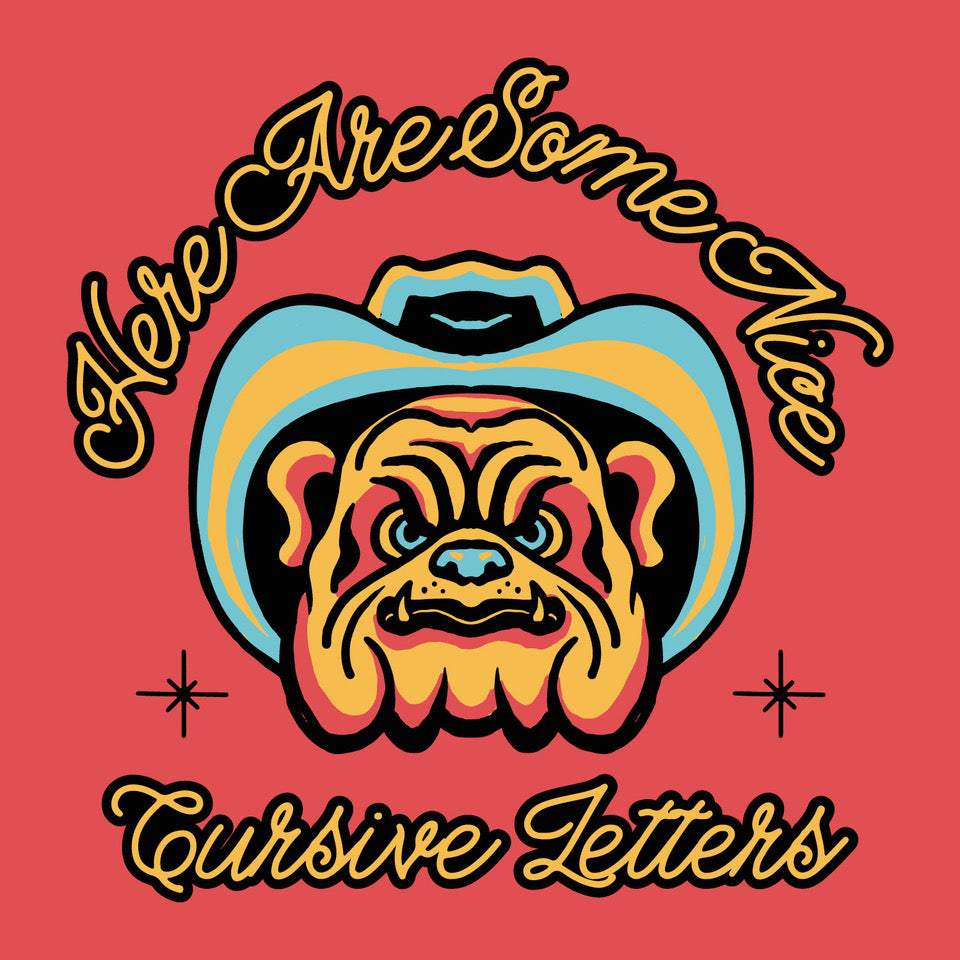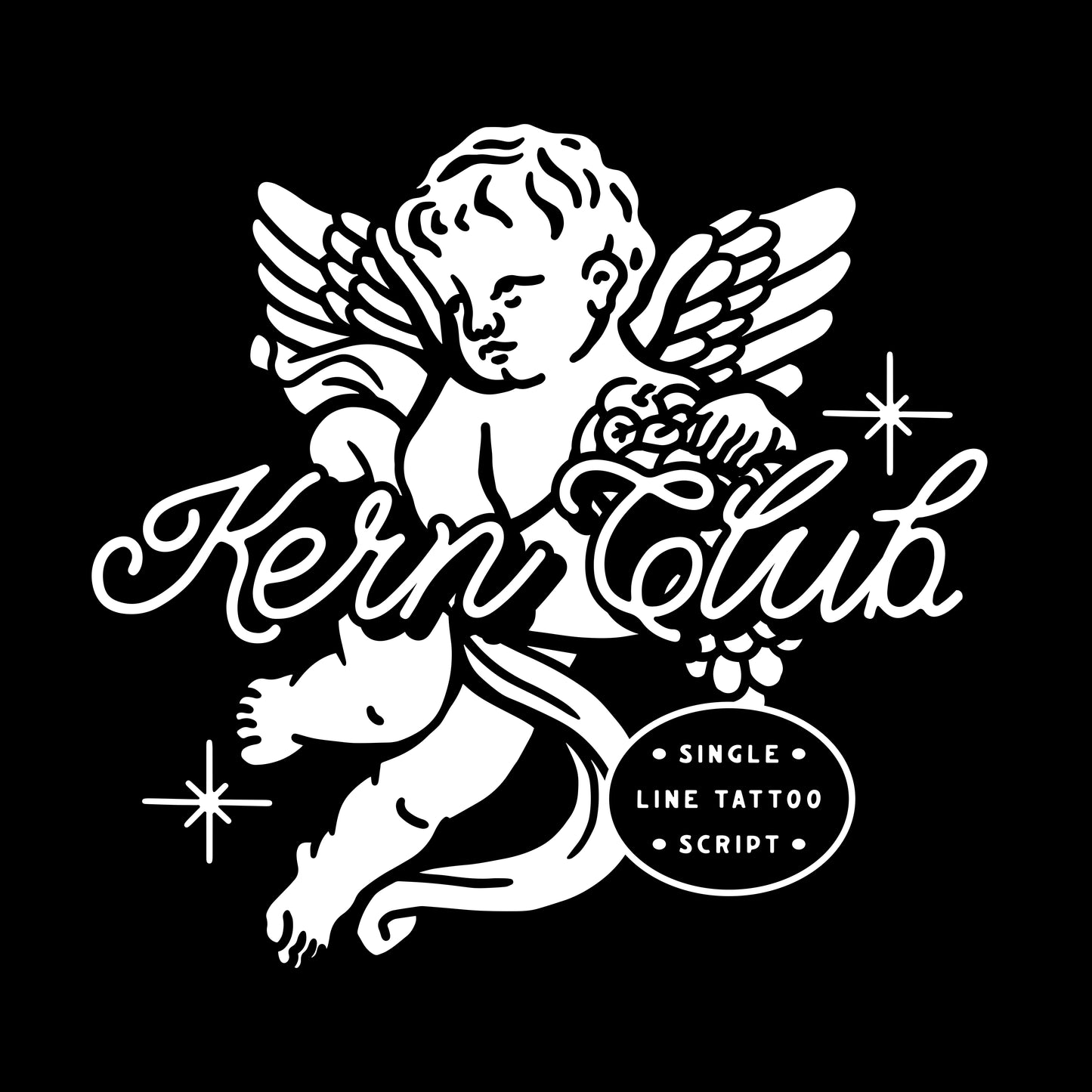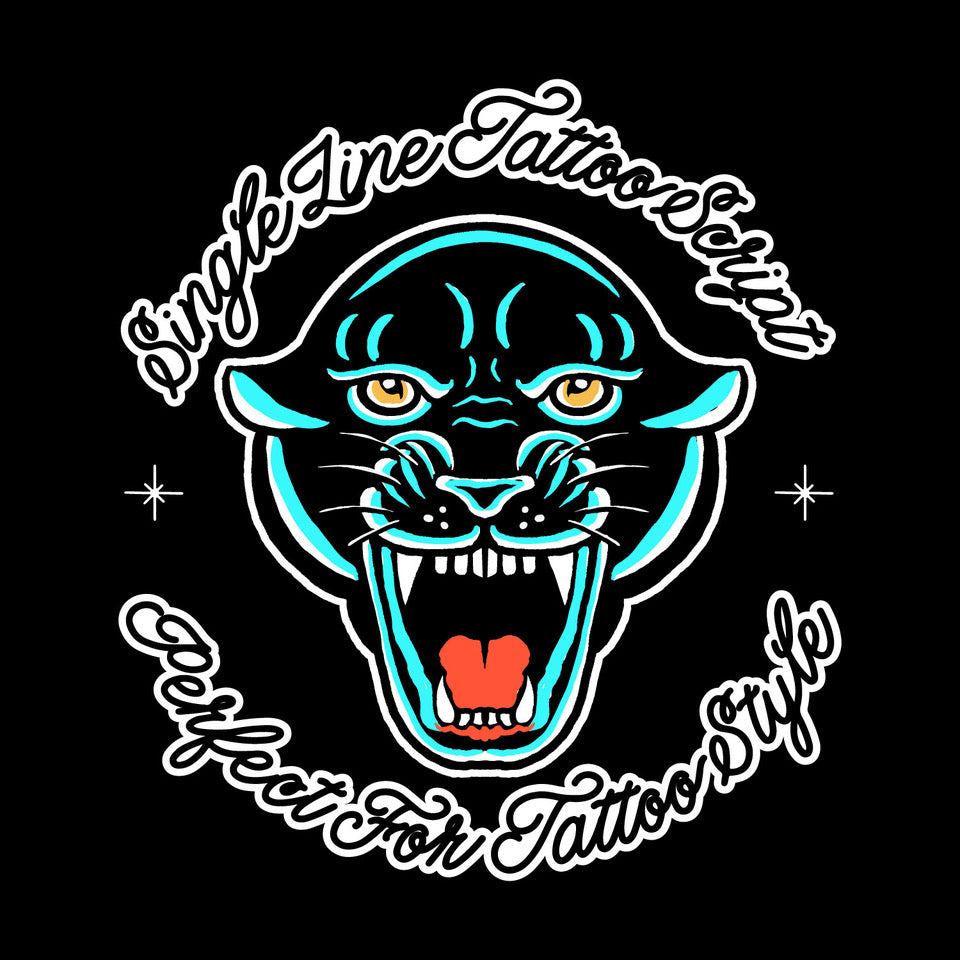
Single Line Tattoo Script Font
Are you about to tattoo the homie and dont have time to write up some script? We got you fam…
- Lowercase Character Set a-z